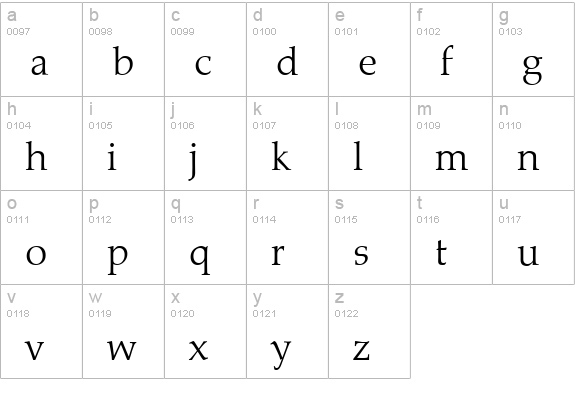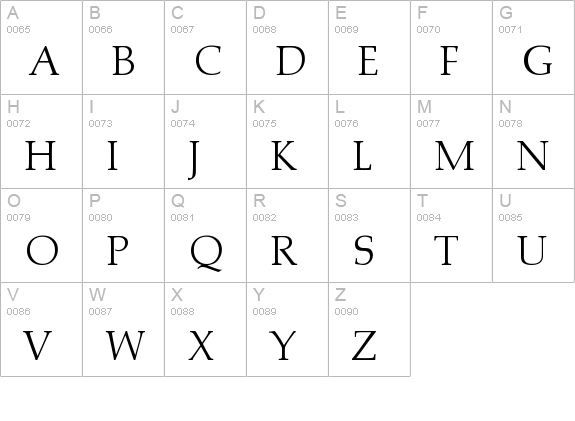
MarathonSerial-Light-Regular is a refined, elegant variant in the MarathonSerial typeface family \xE2\x80\x94 well suited to elegant body text, refined sub-headings, and luxury branding.
MarathonSerial-Light-Regular is a modern and elegant font that is perfect for various design projects. Its clean lines and sleek appearance make it ideal for use in branding, advertising, web design, and more. This font exudes a sense of sophistication and professionalism, making it a versatile choice for both digital and print applications. With its balanced proportions and legible letterforms, MarathonSerial-Light-Regular ensures readability while adding a touch of style to your designs. Best of all, MarathonSerial-Light-Regular is available for free download at FontsMarket.com. This means that you can easily access this high-quality font without any cost, making it a valuable addition to your font library. Whether you're a designer looking for a new typeface to elevate your projects or a business owner in need of a polished font for your marketing materials, MarathonSerial-Light-Regular is a fantastic choice that won't break the bank. Download it today and see how this versatile font can enhance your designs!